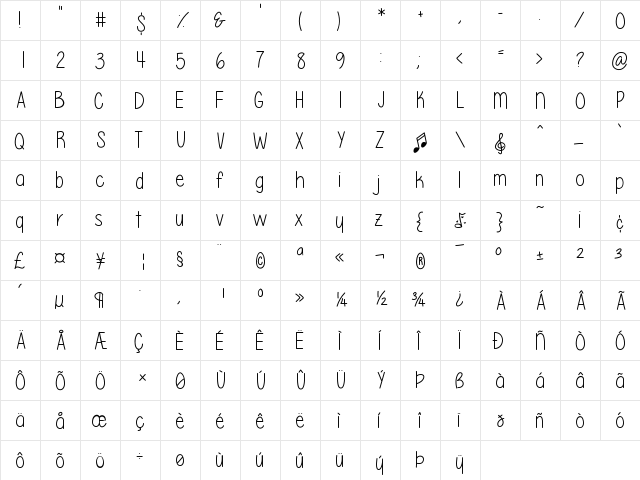
Pleasewritemeasong Medium
Design Context for Pleasewritemeasong Typeface
Pleasewritemeasong is a composed and adaptable typeface that performs quietly and consistently across a wide range of design contexts.